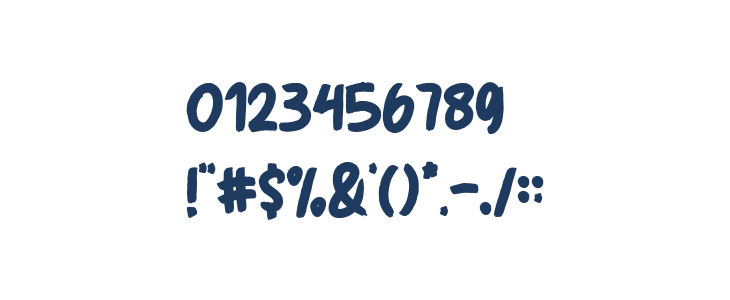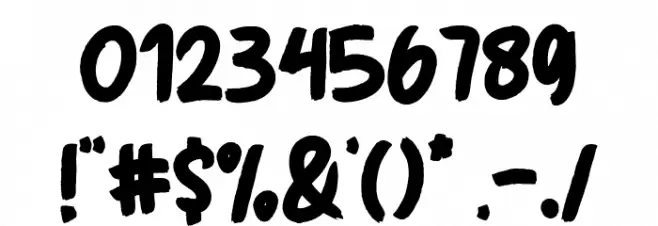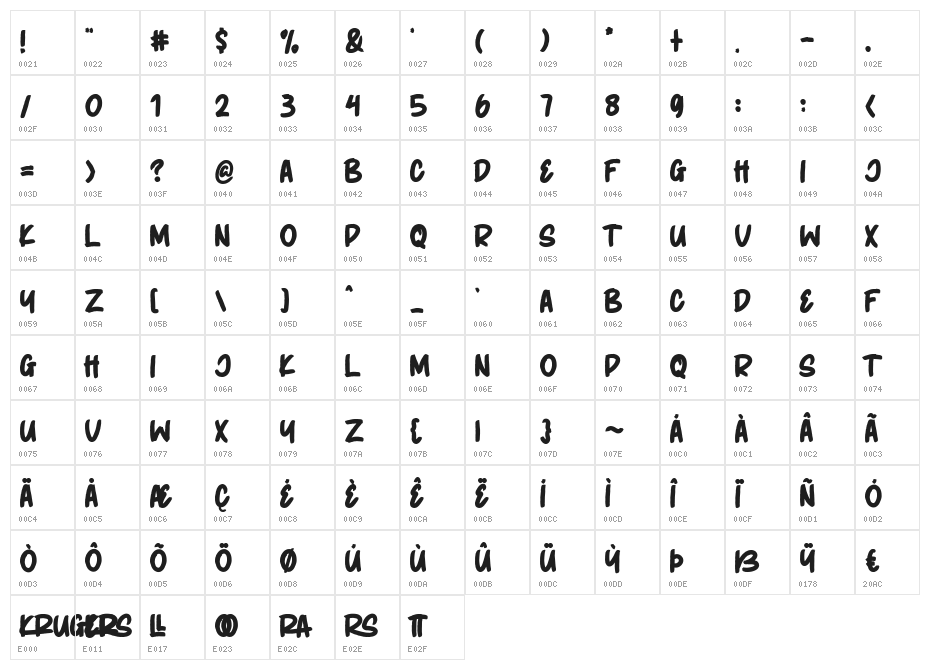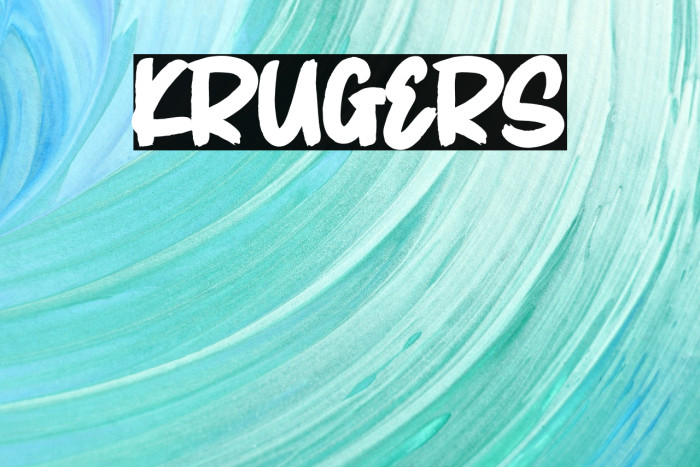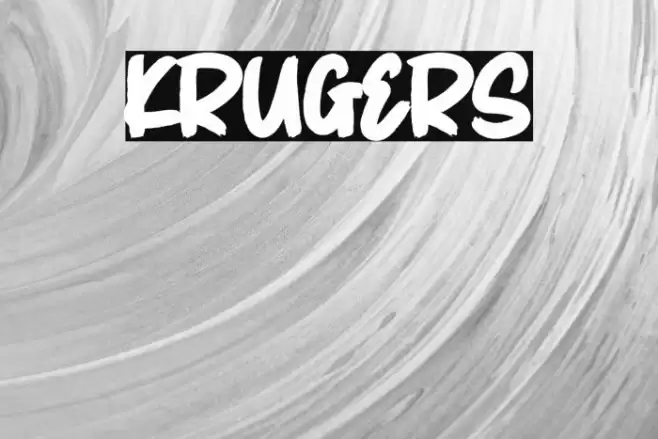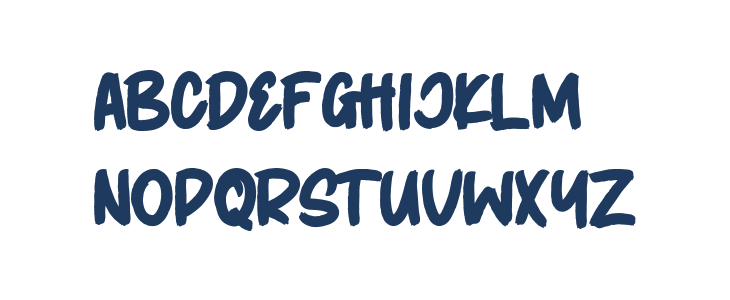
KRUGERS Font
KRUGERS Description
This font features a bold and expressive style with a handwritten aesthetic. The characters are thick and have a slightly irregular, brush-like appearance, giving them a dynamic and energetic feel. The uppercase and lowercase letters maintain a consistent weight, contributing to a cohesive look. The numbers and special characters follow the same bold and lively design, ensuring uniformity across all glyphs. This font's strong visual impact makes it suitable for attention-grabbing designs.
Proposed ProjectsIdeal for posters, branding, headlines, and any project requiring a bold, eye-catching font.